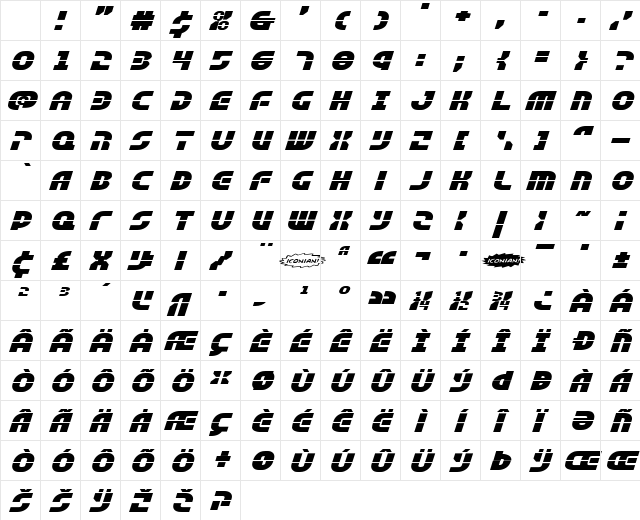
Rebel Command Extra-exp Italic Extra-expanded Italic
Style: Extra-expanded Italic
Complete Rebel Command Extra-exp Italic Extra-expanded Italic glyph index. Displaying only characters natively supported by Rebel Command Extra-exp Italic Extra-expanded Italic font.
Design Context for Rebel Command Extra-exp Italic
Rebel Command Extra-exp Italic is a composed and adaptable typeface that performs quietly and consistently across a wide range of design contexts. The slanted form adds forward momentum and visual energy.
Pro Tip: Use Rebel Command Extra-exp Italic for emphasis, pull quotes, and subheadings where its slanted energy can add rhythm to the layout.